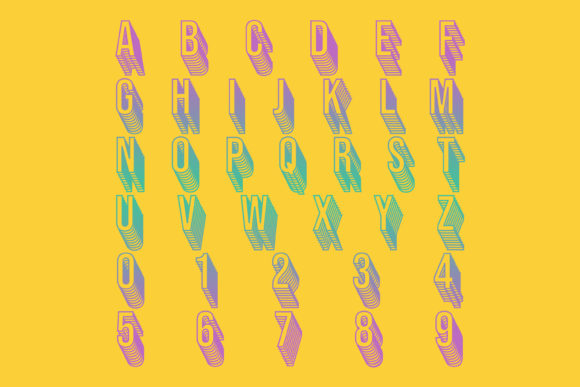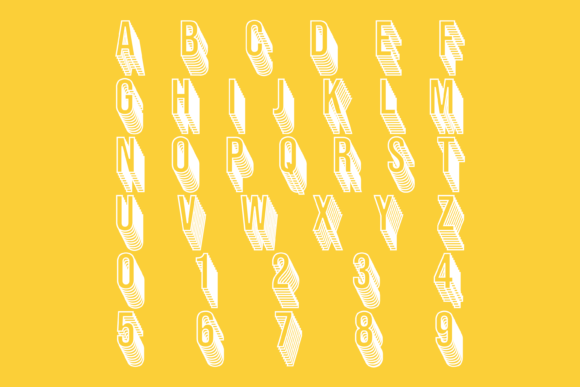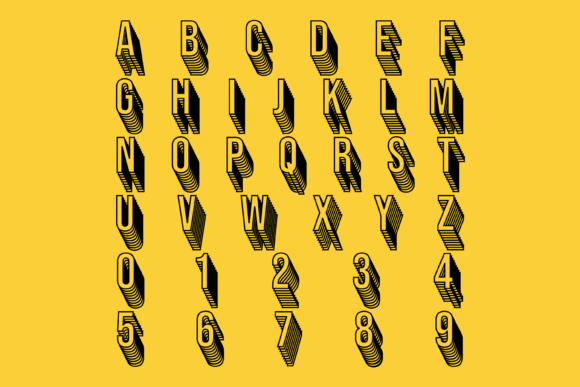
Discover the Charm of Deck Font: Elevate Your Designs with a Lovely Touch
Are you on the lookout for a font that can add a dash of elegance and whimsy to your designs? Look no further than Deck Font! This incredibly cool decorative font is perfect for crafters, designers, and anyone looking to add a personal touch to their creations. In this article, we’ll dive into the world of Deck Font, exploring its features, uses, and benefits, and why it’s an amazing choice for your next project.
The Allure of Deck Font
Deck Font is a stunning decorative font that boasts a unique and captivating style. Its intricate details and curved lines make it an eye-catching addition to any design. Whether you’re working on a custom project, DIY craft, or simply want to add a touch of personality to your creations, Deck Font is sure to impress. Its versatility and charm make it an excellent choice for a wide range of applications, from paper crafting to digital designs.
Features of Deck Font
So, what makes Deck Font so special? Here are just a few of its notable features:
- Unique and decorative style: Deck Font’s distinctive design sets it apart from other fonts, making it perfect for adding a touch of personality to your creations.
- Intricate details: The font’s intricate details and curved lines add a level of sophistication and elegance to your designs.
- Versatile: Deck Font can be used for a wide range of projects, from custom designs and DIY crafts to digital creations and paper crafting.
Uses for Deck Font
The possibilities are endless when it comes to using Deck Font! Here are just a few ideas to get you started:
- Custom designs: Add a personal touch to your custom designs, from party invitations to branding materials.
- DIY crafts: Use Deck Font to add a decorative touch to your DIY crafts, such as scrapbooking, card making, and paper crafting.
- Digital creations: Incorporate Deck Font into your digital designs, including social media graphics, blog posts, and website headers.
- Paper crafting: Add a touch of elegance to your paper crafting projects, such as card making, gift tags, and journaling.
Benefits of Using Deck Font
So, why choose Deck Font for your next project? Here are just a few benefits of using this amazing font:
- Adds a personal touch: Deck Font allows you to add a personal touch to your designs, making them stand out from the crowd.
- Enhances creativity: The font’s unique style and intricate details can inspire creativity and help you think outside the box.
- Versatile and flexible: Deck Font can be used for a wide range of projects, making it a great addition to your design toolkit.
Tips for Using Deck Font
Here are a few tips for getting the most out of Deck Font:
- Experiment with different sizes and colors: Play around with different sizes and colors to find the perfect combination for your design.
- Pair with other fonts: Combine Deck Font with other fonts to create a unique and visually appealing design.
- Use it sparingly: Use Deck Font sparingly to add a touch of elegance and sophistication to your designs.
In conclusion, Deck Font is an incredibly cool decorative font that’s perfect for adding a lovely touch to your designs. Its unique style, intricate details, and versatility make it an excellent choice for crafters, designers, and anyone looking to elevate their creations. With its ease of use and flexibility, Deck Font is sure to become a staple in your design toolkit. So why wait? Give Deck Font a try today and discover the charm it can add to your designs!